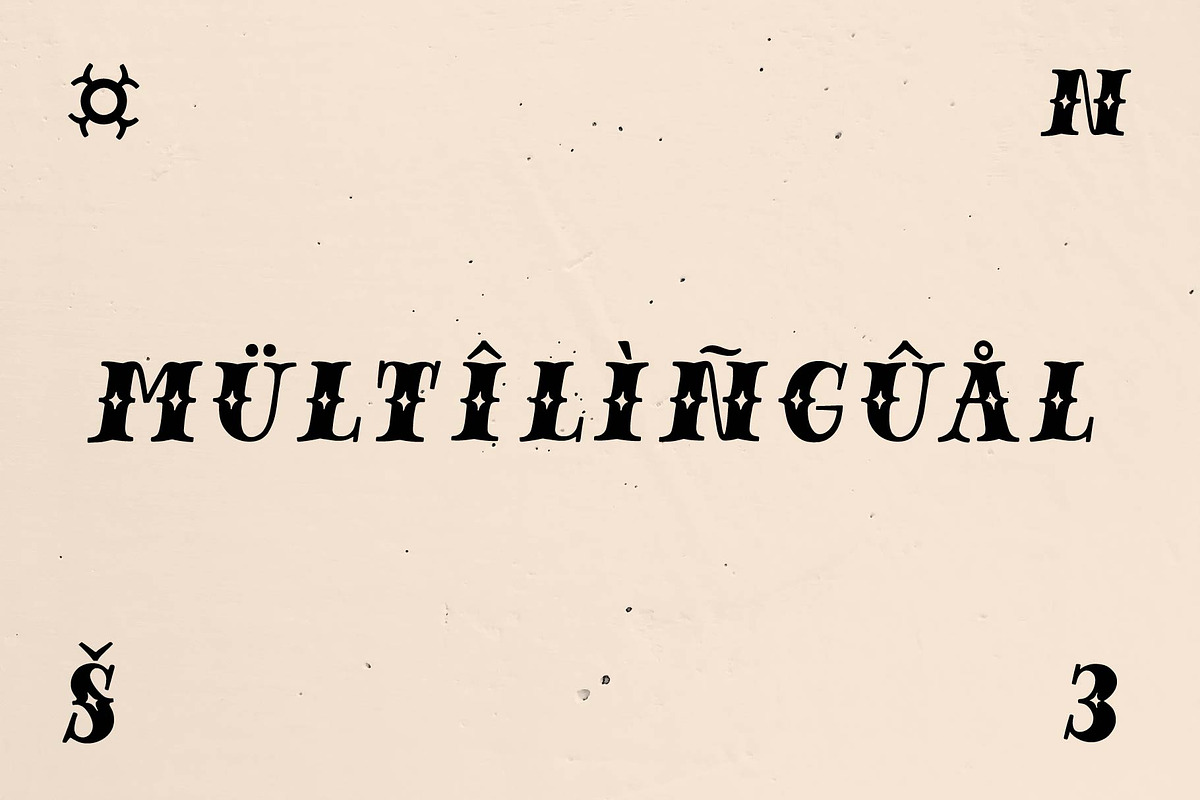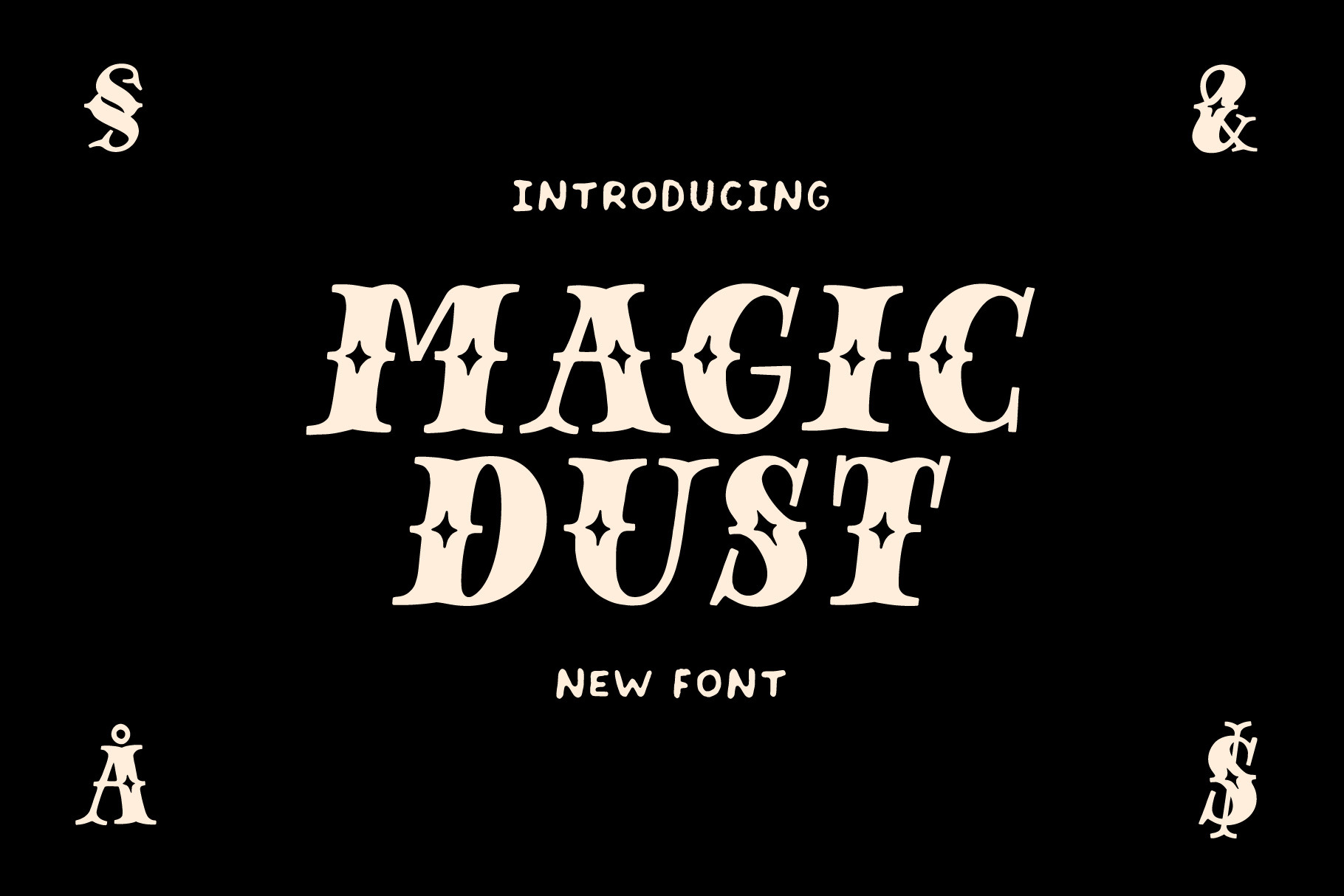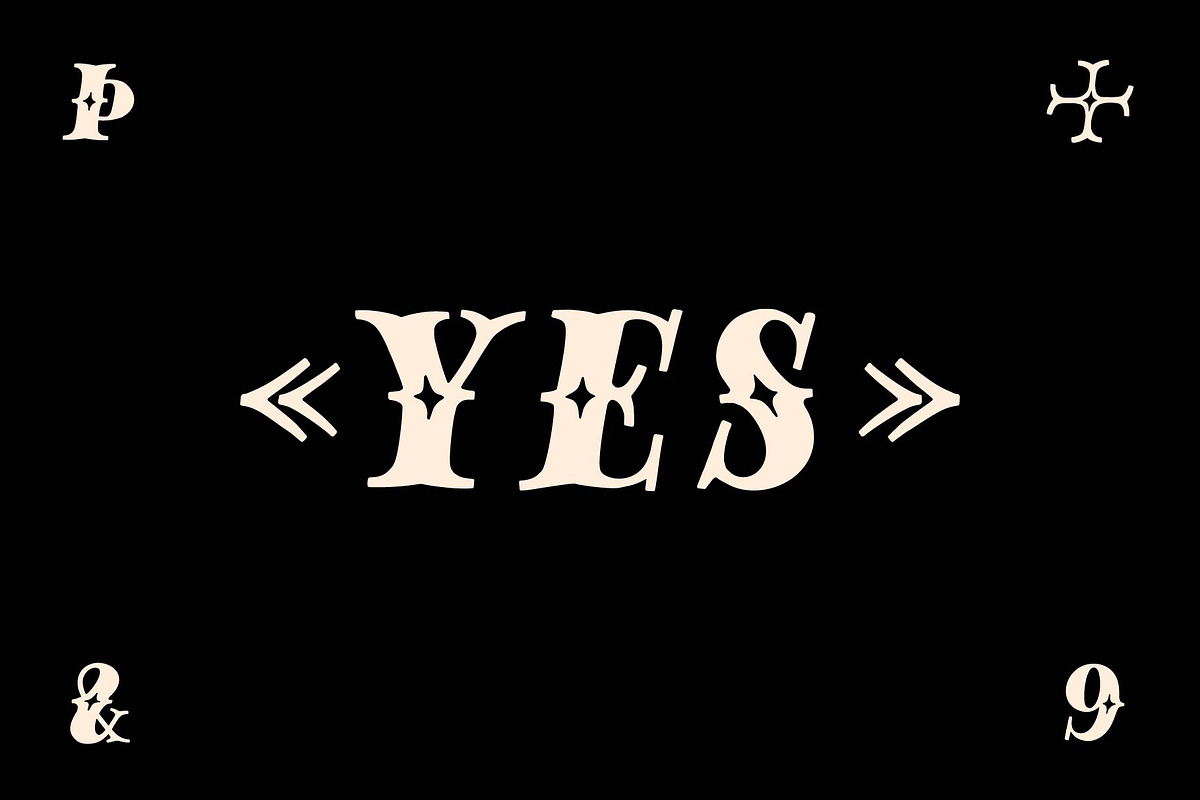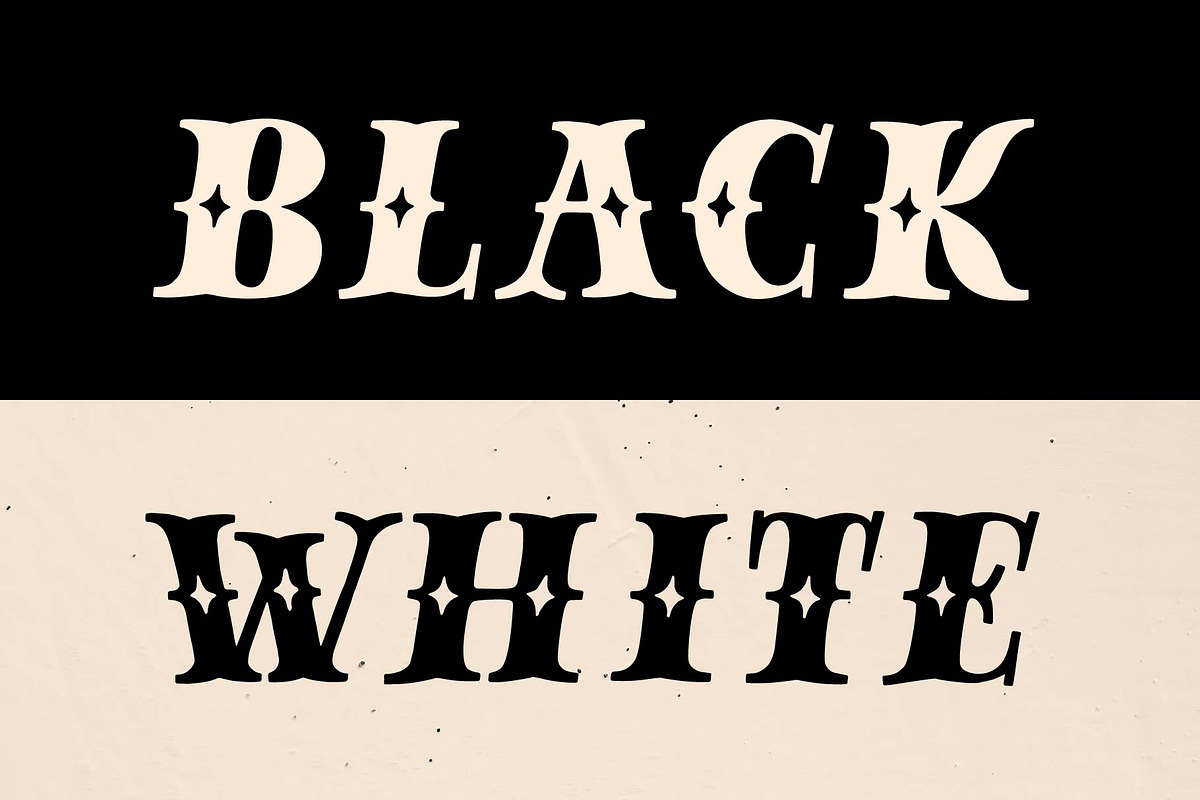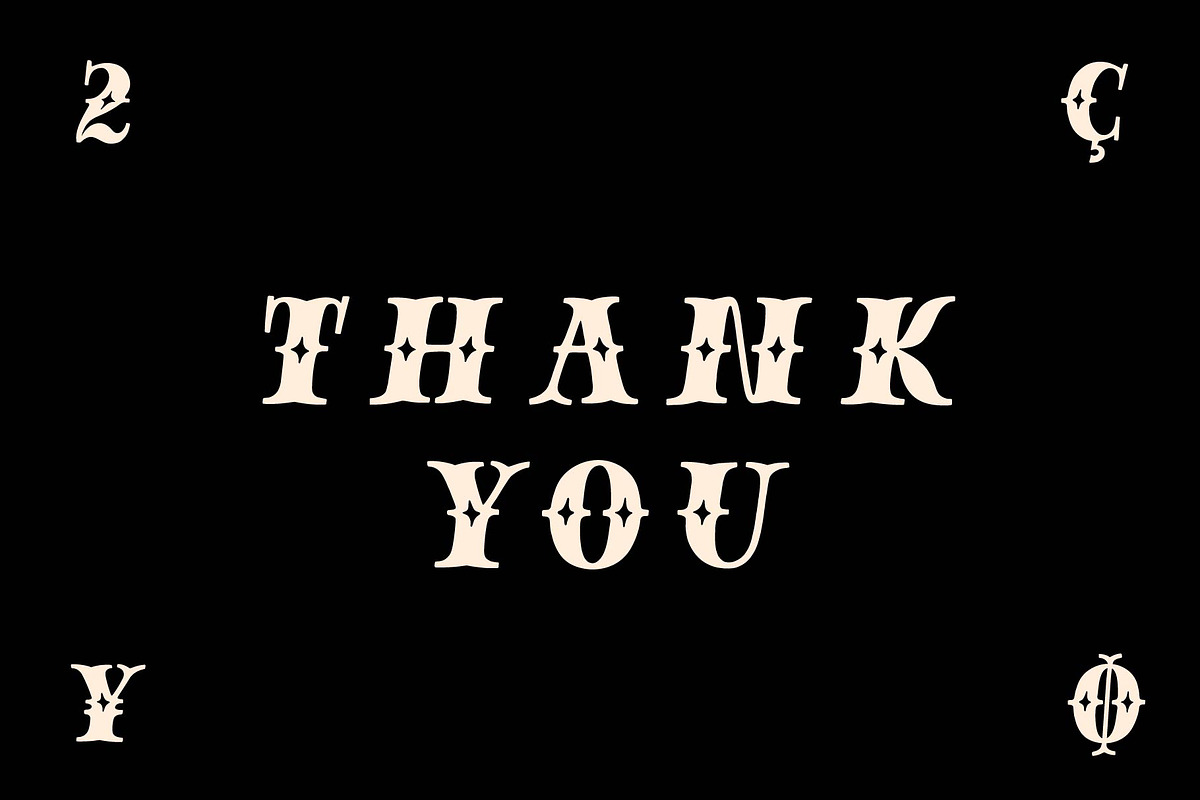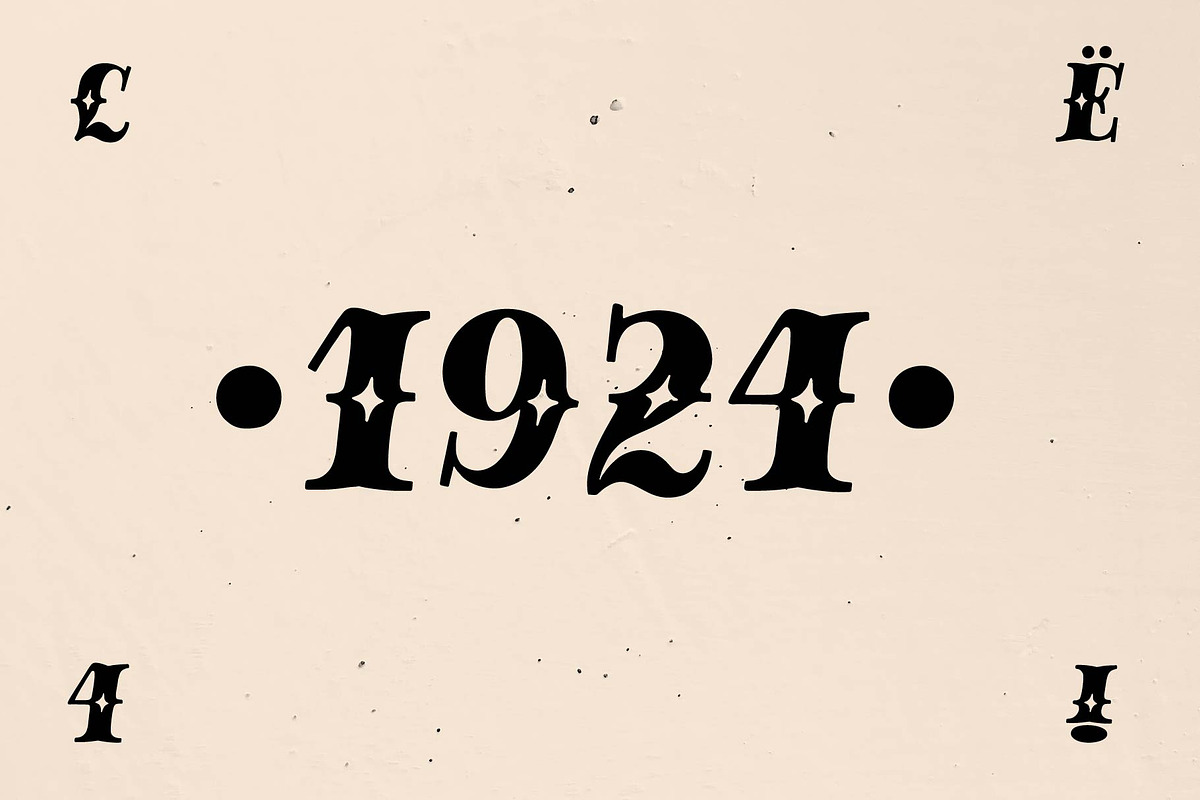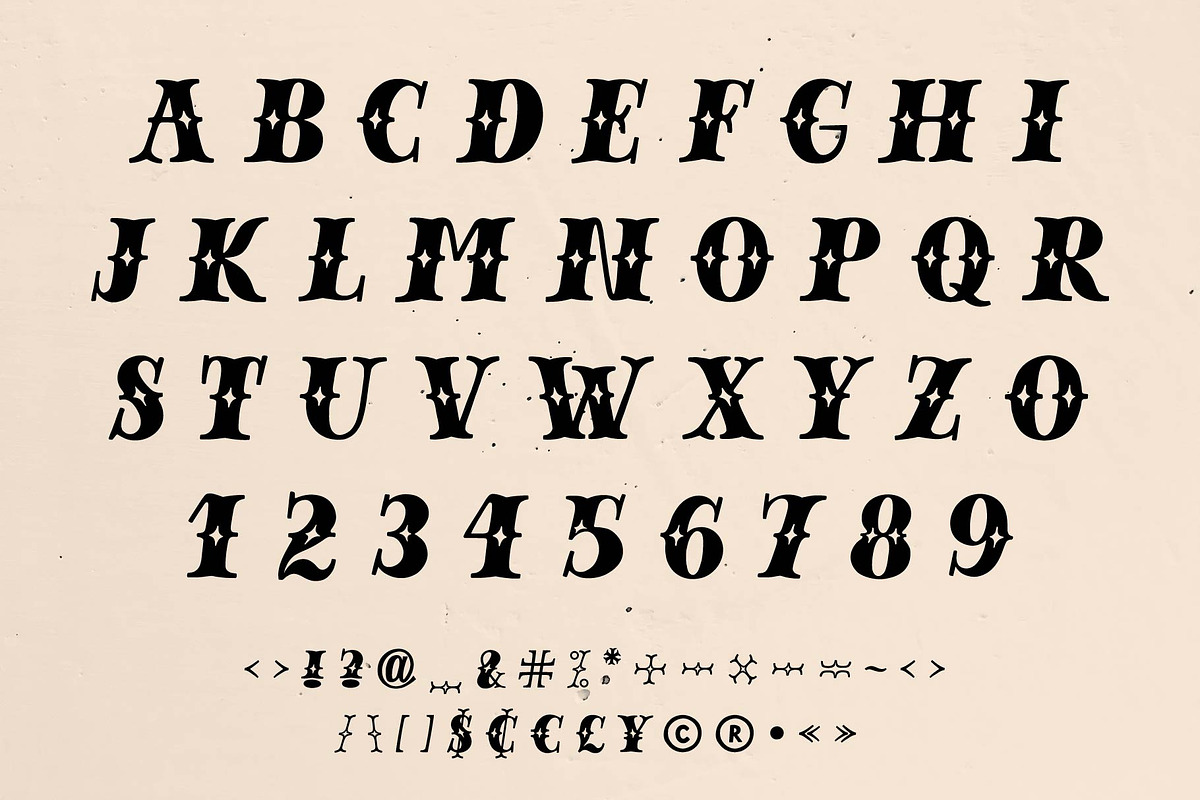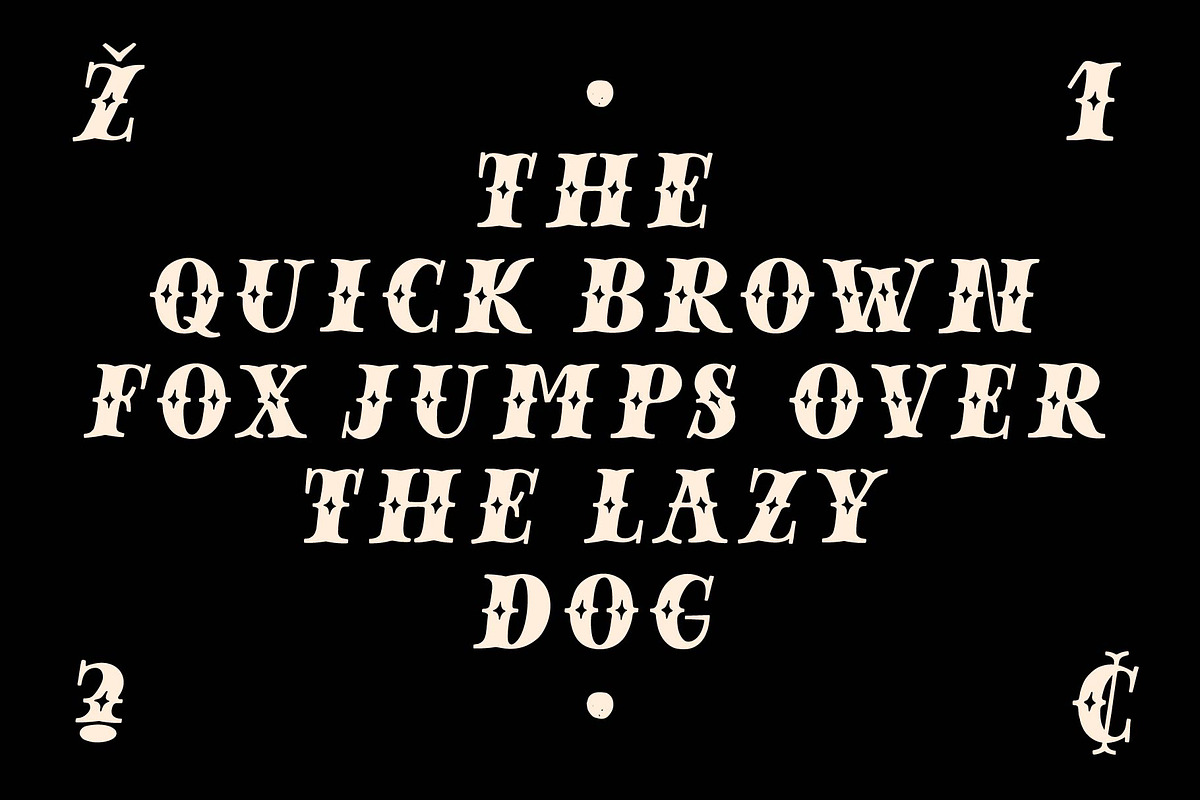
Magic Dust - vintage display font
Magic Dust is a vintage handmade all caps font. It is perfect for: logos, posters, labels, headlines, apparel & more. It comes with characters, numbers, marks and punctuation.